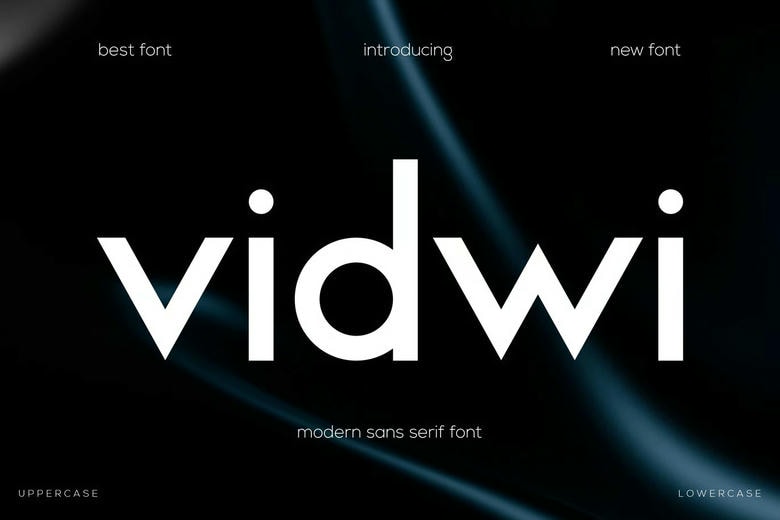
Vidwi Font
Vidwi is a good quality sans serif typeface which is created by Auliacreative, and can be downloaded and used personally without fee. The typeface is ideal in elegant logos, branding, travel promotional, layout magazines, beauty products, product packaging, quotes or just a simple elegant text overlay to any background image.
Vidwi Sans Serif Font